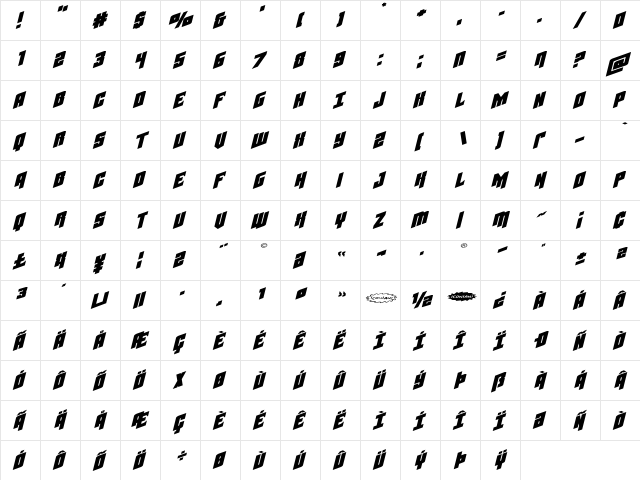
Galaxy Force Extra-Expanded Italic Expanded Italic
Design Context for Galaxy Force Extra-Expanded Italic Typeface
Galaxy Force Extra-Expanded Italic brings high-energy athletic personality to the page — its confident, muscular forms are built for impact. Its italic angle brings a sense of urgency and motion to the letterforms.
A natural choice for gym brands, fantasy sports, jersey lettering, and action-driven headlines.
Pro Tip: Use Galaxy Force Extra-Expanded Italic in all-caps headlines where its athletic energy can fully express itself. Pair with a solid, simple sans for supporting text.